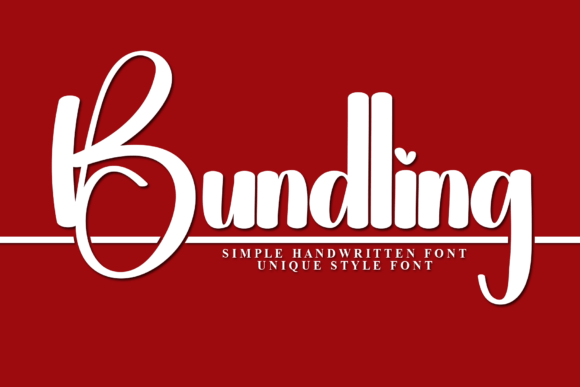
Unlock Creative Potential with Bundling Font: Elevate Your Designs to Extraordinary Heights
Are you a designer, crafter, or creative enthusiast looking to add a touch of elegance and sophistication to your projects? Look no further than our Bundling Font, a special creative product designed to give you an extraordinary experience. Our latest style letters are perfect for a wide range of applications, from wall displays and wedding invitations to social media post logos, advertisements, product packaging, and more.
With our Bundling Font, the possibilities are endless. Whether you’re working on a personal project or a professional assignment, our font is designed to help you create stunning visuals that capture attention and leave a lasting impression. Here are just a few ideas to get you started:
- Wall displays and signage
- Social media post logos and graphics
- Advertisements and marketing materials
- Product packaging and design
- Labels and branding
- Photography and watermarks
- Invitations and event materials
- Stationery and letterheads
Why Choose Our Bundling Font?
So why choose our Bundling Font over other font options? Here are just a few reasons why our font stands out:
- Unique and stylish design: Our font is designed to be both elegant and versatile, making it perfect for a wide range of creative projects.
Tips for Using Our Bundling Font
To get the most out of our Bundling Font, here are a few tips to keep in mind:
- Experiment with different sizes and colors: Our font looks great in a variety of sizes and colors, so don’t be afraid to experiment and find the perfect combination for your project.
- Pair with other fonts: Our font pairs well with other fonts, so feel free to get creative and try out different combinations.
- Use in combination with other design elements: Our font can be used in combination with other design elements, such as images and graphics, to create stunning visuals.